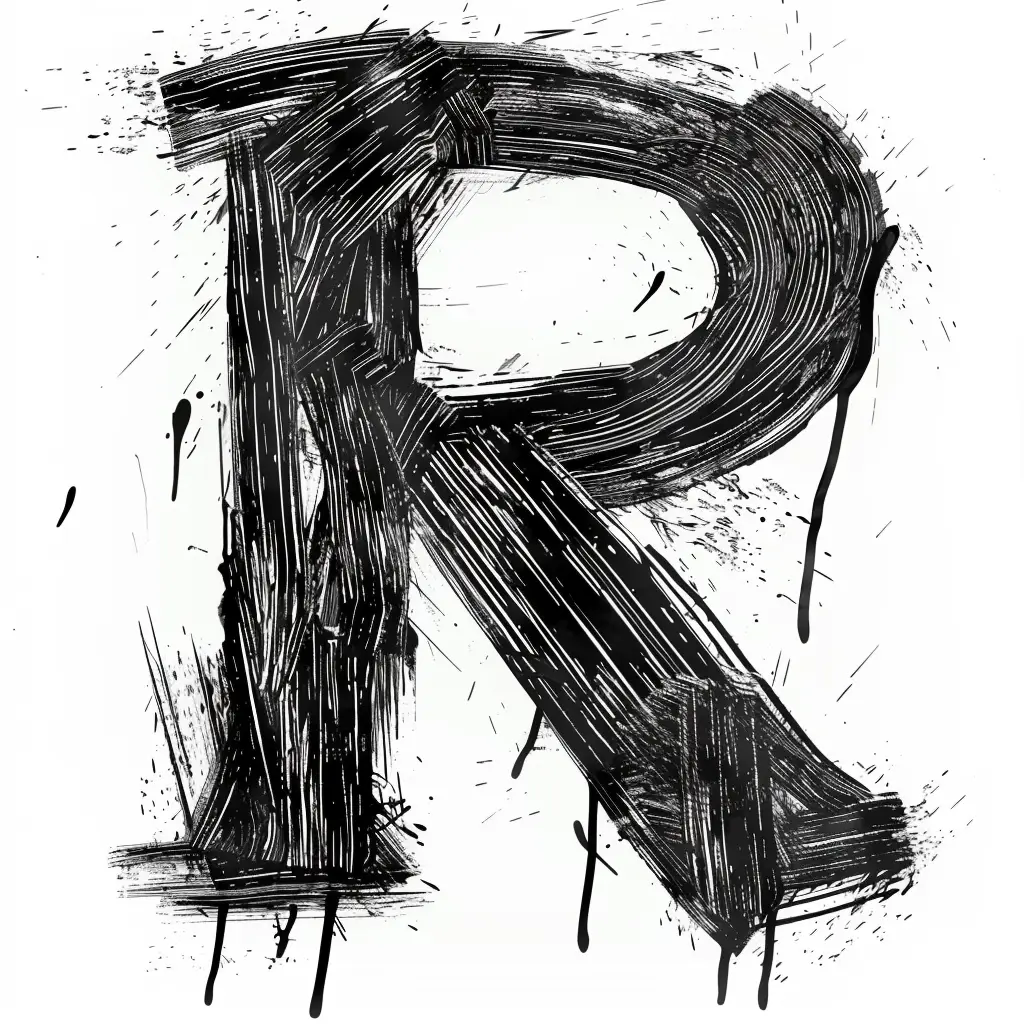
The image features a stylized, hand-drawn letter "R" rendered in bold black brushstrokes with a textured, layered appearance. The design incorporates splatters, drips, and rough, expressive lines, giving it a dynamic, artistic, and slightly chaotic feel. The monochromatic color scheme (black on white) emphasizes the contrast and raw, painterly style of the typography.